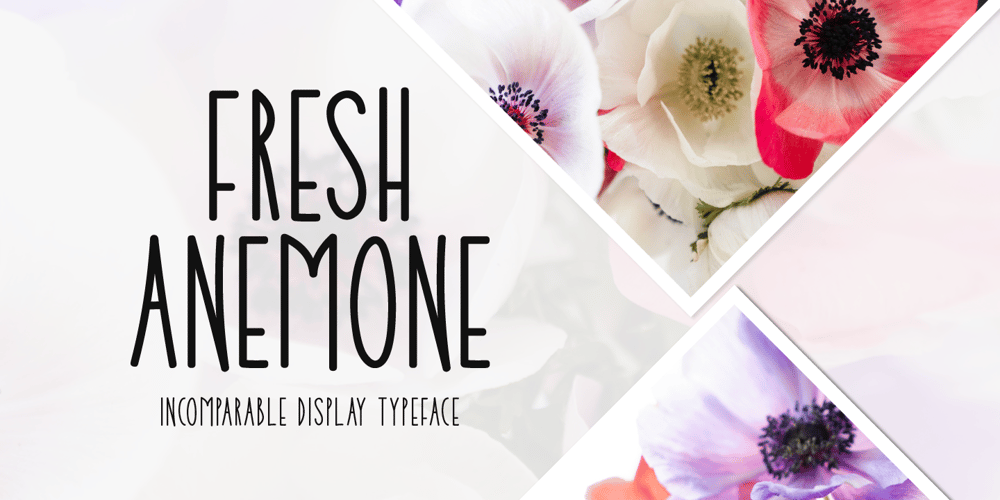
Fresh Anemone Font Family was designed by Md Shohail Bhuian and published by Seemly Fonts. Fresh Anemone contains 1 styles and family package options. Fresh Anemone is a cute and quirky display font. It will add an incredibly joyful touch to your designs. Add this beautiful display font to each of your creative ideas and notice how it makes them stand out!